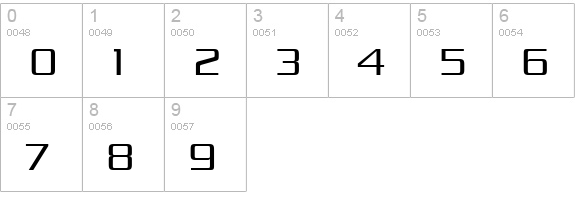
PFStargate Regular Font Details
PFStargate Regular is the standard, neutral variant in the PFStargate typeface family \xE2\x80\x94 well suited to general body text, paragraphs, and standard typographic work.
PFStargate Regular font is a sleek and modern typeface that is perfect for a wide range of design projects. With its clean lines and futuristic appearance, this font is sure to make a bold statement. Whether you are creating a website, designing a logo, or working on a print project, PFStargate Regular font is a versatile choice that will add a touch of sophistication to your work. Best of all, PFStargate Regular font is available for free download at FontsMarket.com. This means that you can easily access this high-quality font without breaking the bank. So why wait? Add PFStargate Regular font to your font collection today and take your designs to the next level.